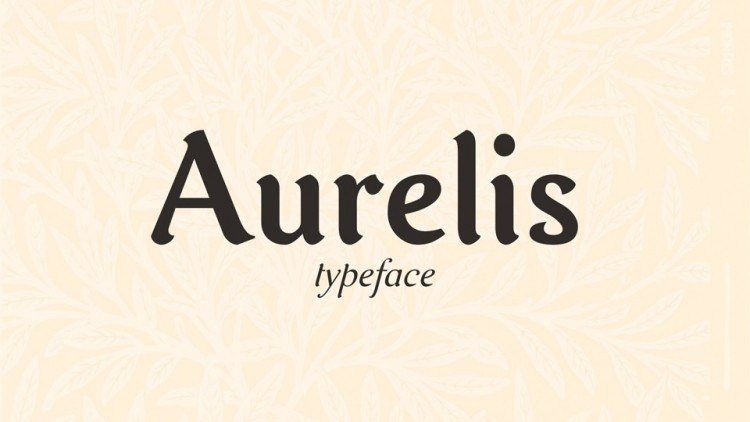
Aurelis Typeface
Aurelis is an imperfect, hand-drawn serif font. It has a modern look with a free-spirit touch! There are a fun set of alternative letters to play with as well!
Aurelis is perfect for branding, logos, initials, invitations, blogs, social media and more!